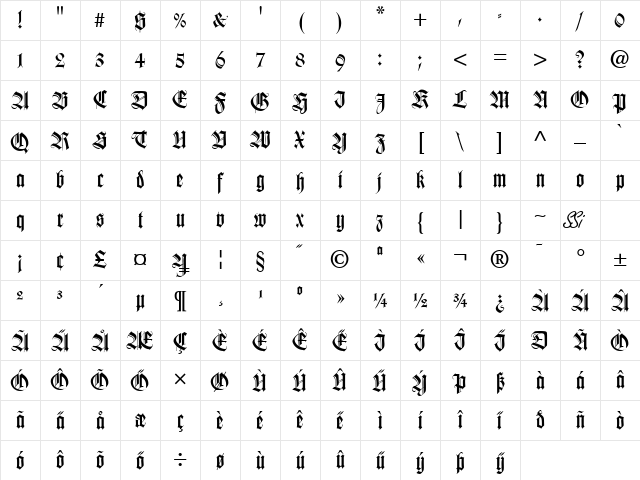
Complete Tudor SSi Bold glyph index. Displaying only characters natively supported by Tudor SSi Bold font.
Tudor SSi is a composed and adaptable typeface that performs quietly and consistently across a wide range of design contexts. Its bold stroke weight gives it real presence on the page.